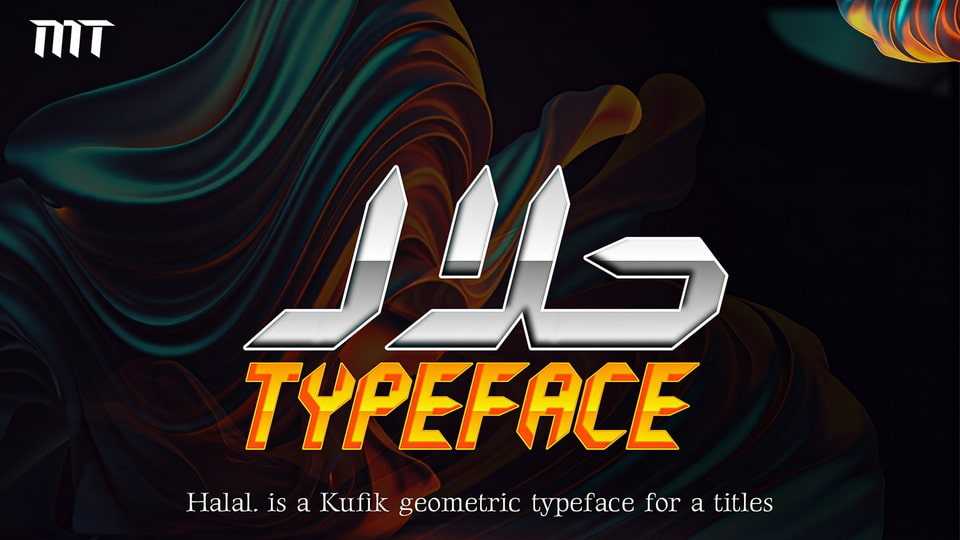
Download Halal font, a unique typographic creation, embodying strength in its sharp, geometric details resembling a pen nib or a sword’s edge, while maintaining the elegance of traditional Kufic script.